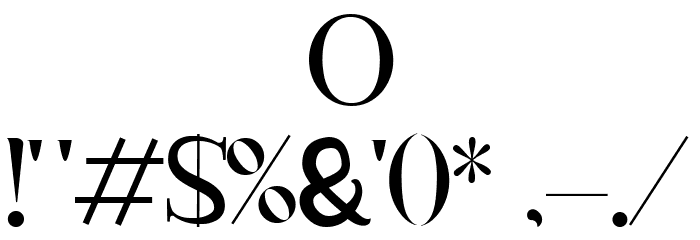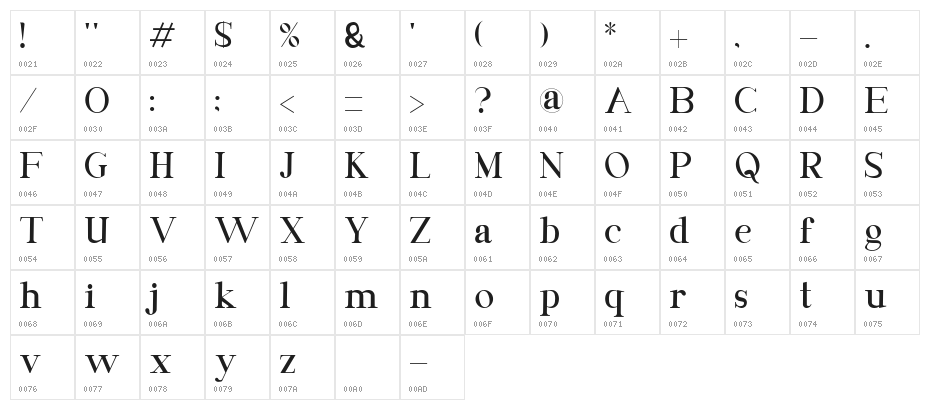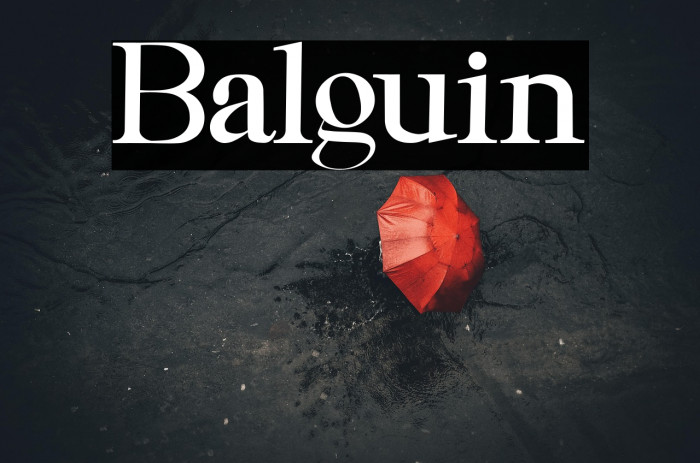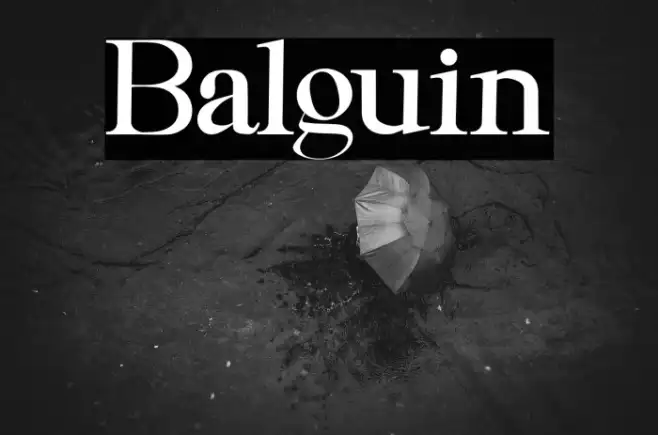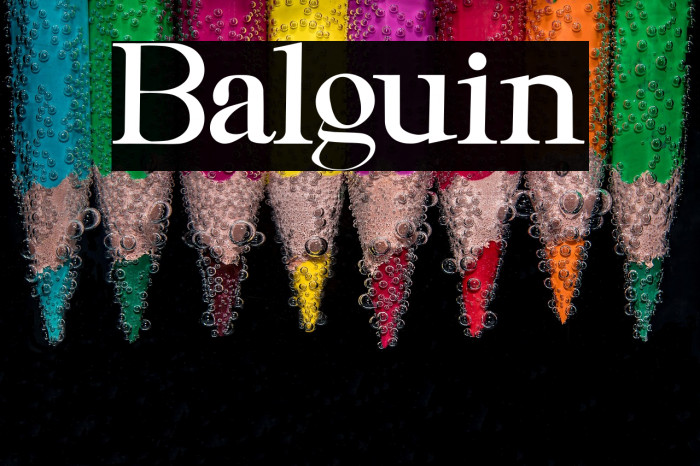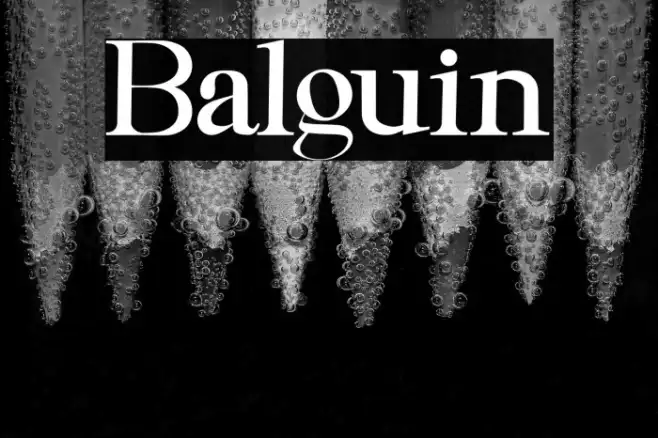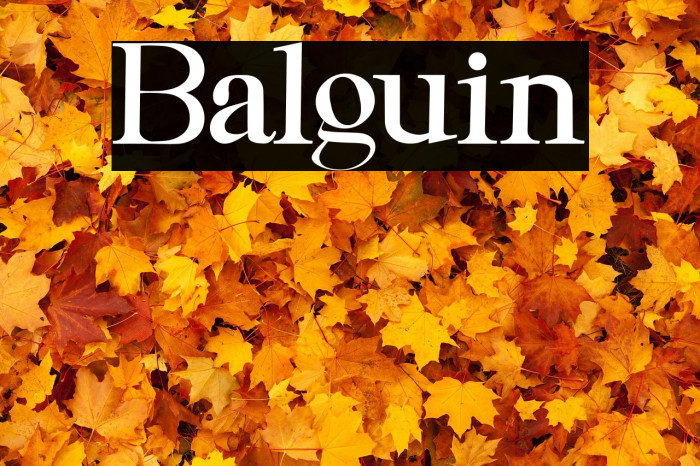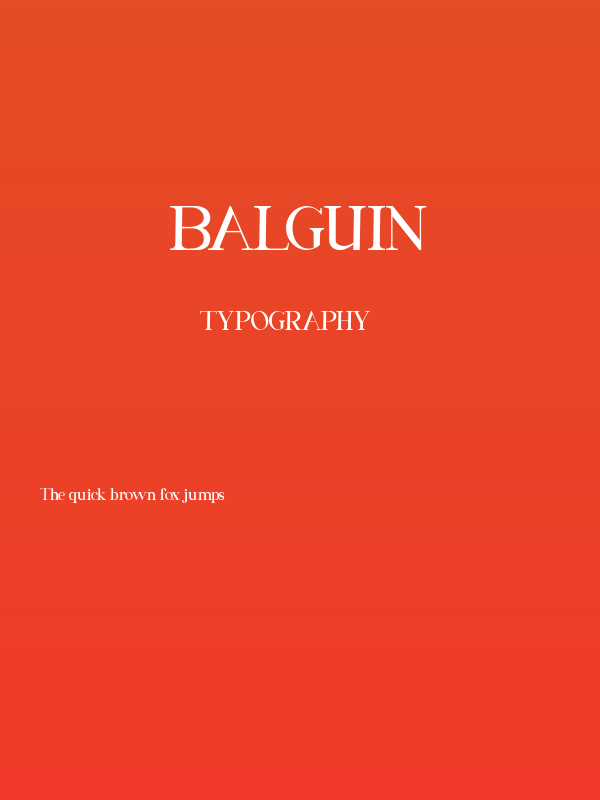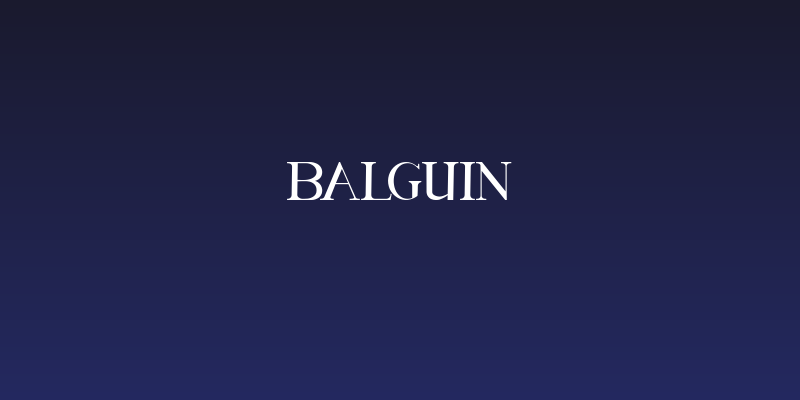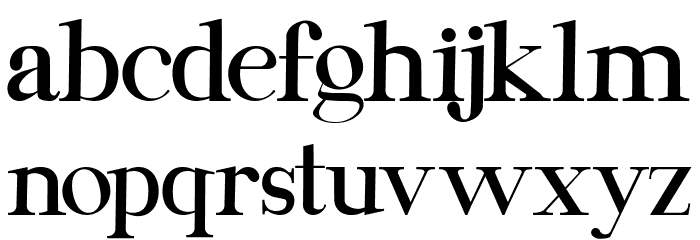
Balguin Font
Balguin Description
This font exhibits a classic serif style with a modern twist. The uppercase letters are elegantly proportioned, featuring sharp serifs and a slight contrast in stroke thickness, which adds a touch of sophistication. The lowercase letters maintain a consistent style, with rounded forms and a balanced weight that complements the uppercase. The numerals are clear and legible, designed to match the overall aesthetic of the alphabet. Special characters are well-integrated, providing versatility for various design needs. The font's overall appearance is both timeless and contemporary, making it suitable for a wide range of applications.
Overall StyleClassic
Use CaseHeadlines, Body text, Logos
Proposed ProjectsIdeal for editorial design, branding, book covers, and elegant invitations.